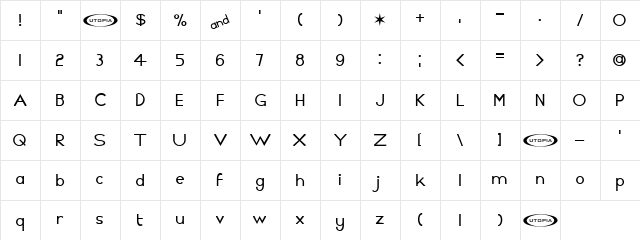
Azrael Regular Free Font
Azrael Regular
Design Context for Azrael
Azrael is a composed and adaptable typeface that performs quietly and consistently across a wide range of design contexts.